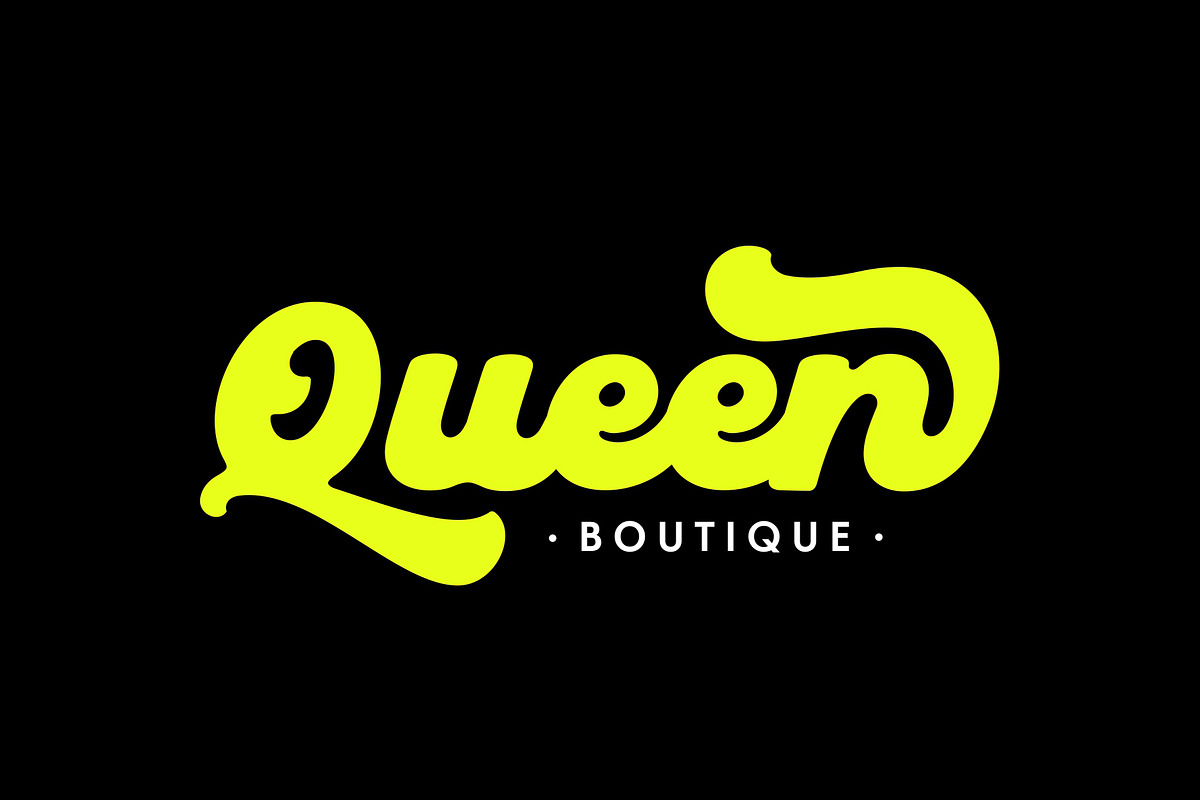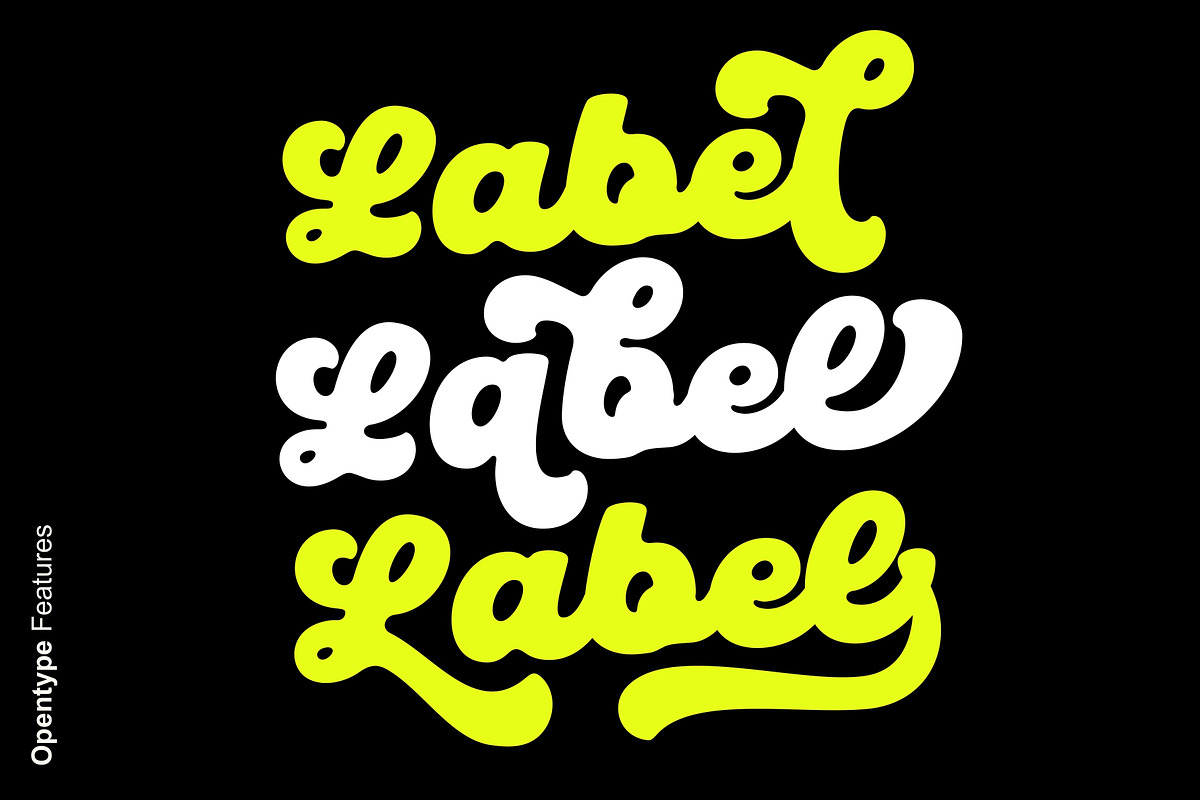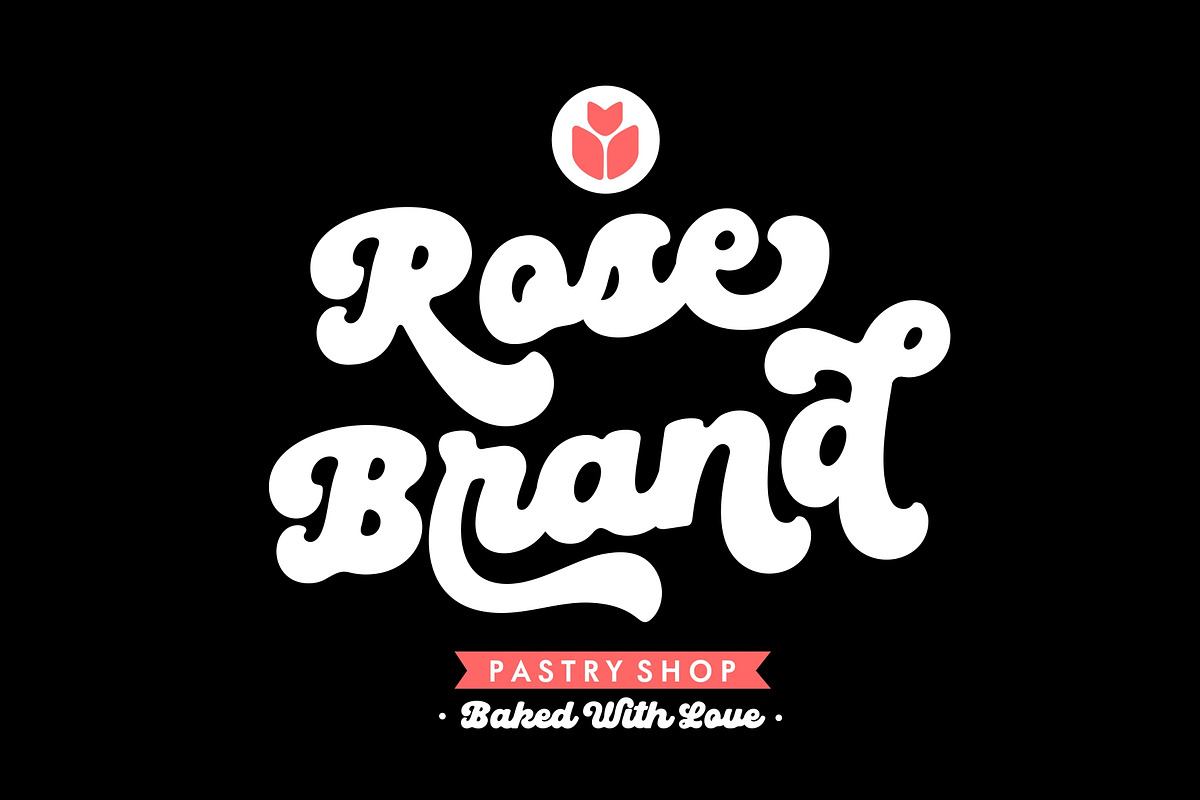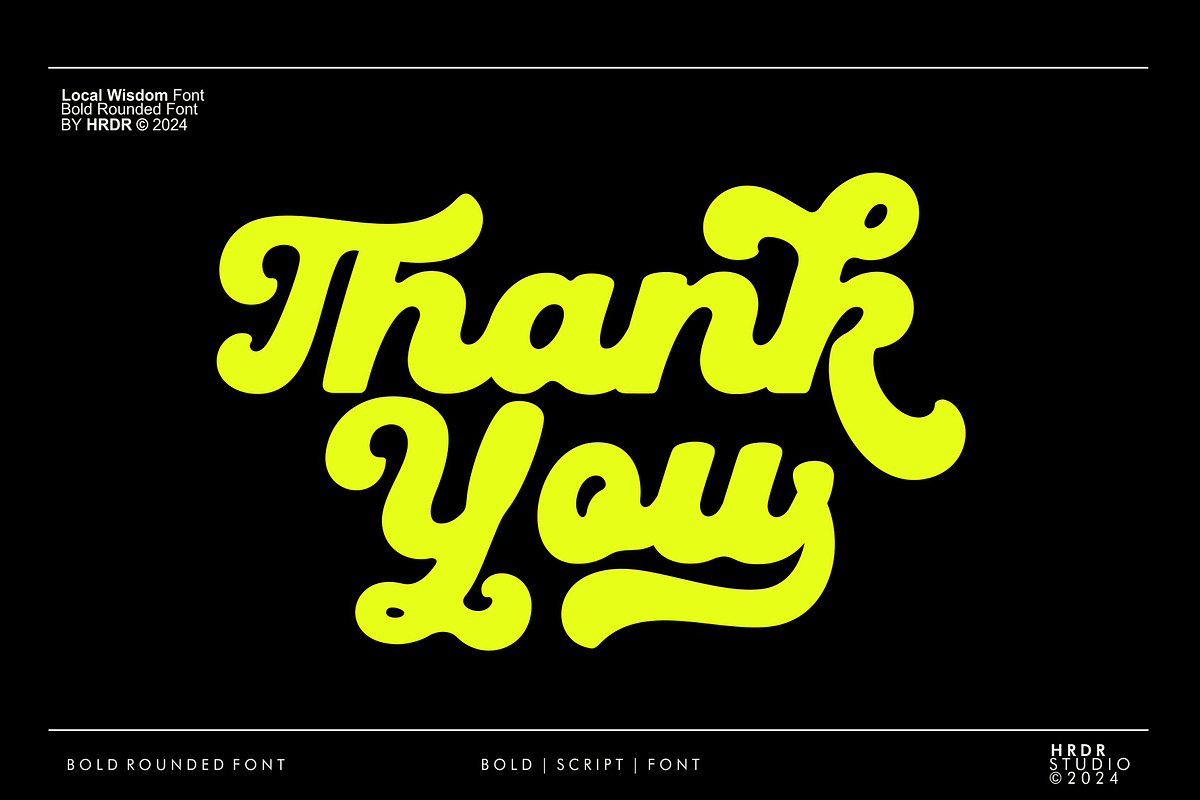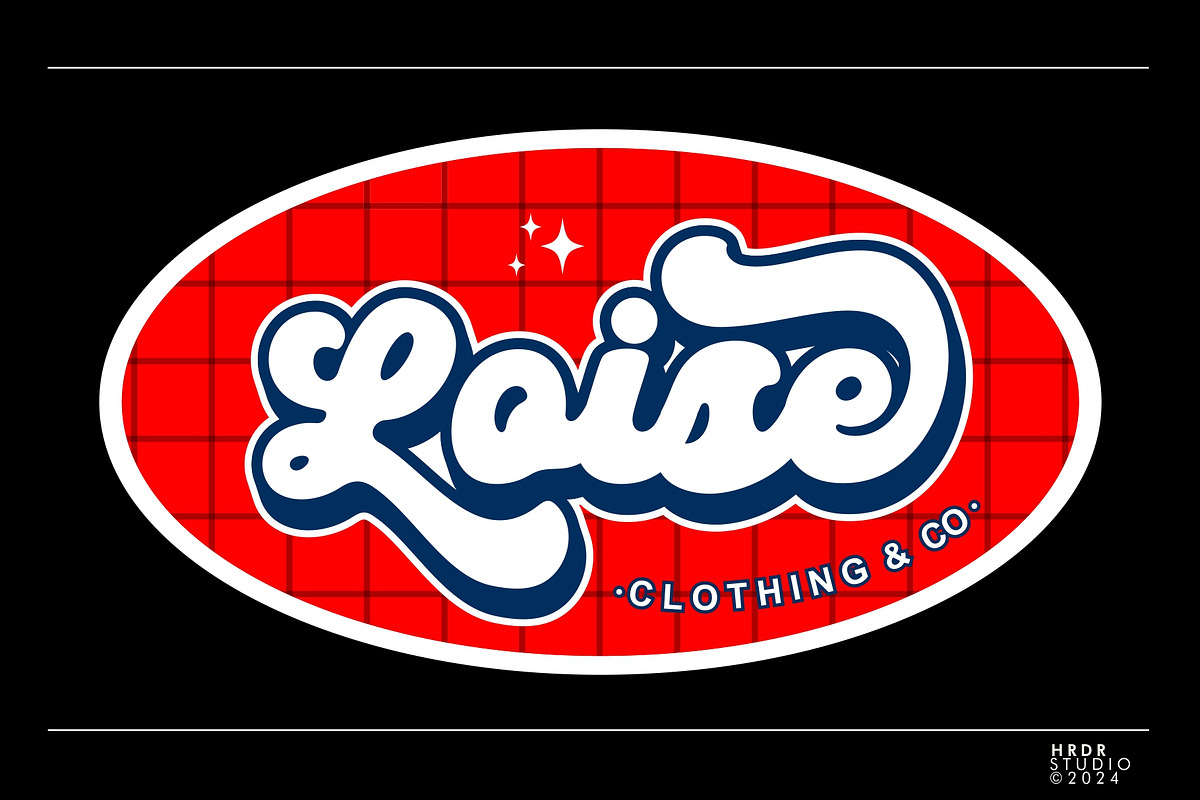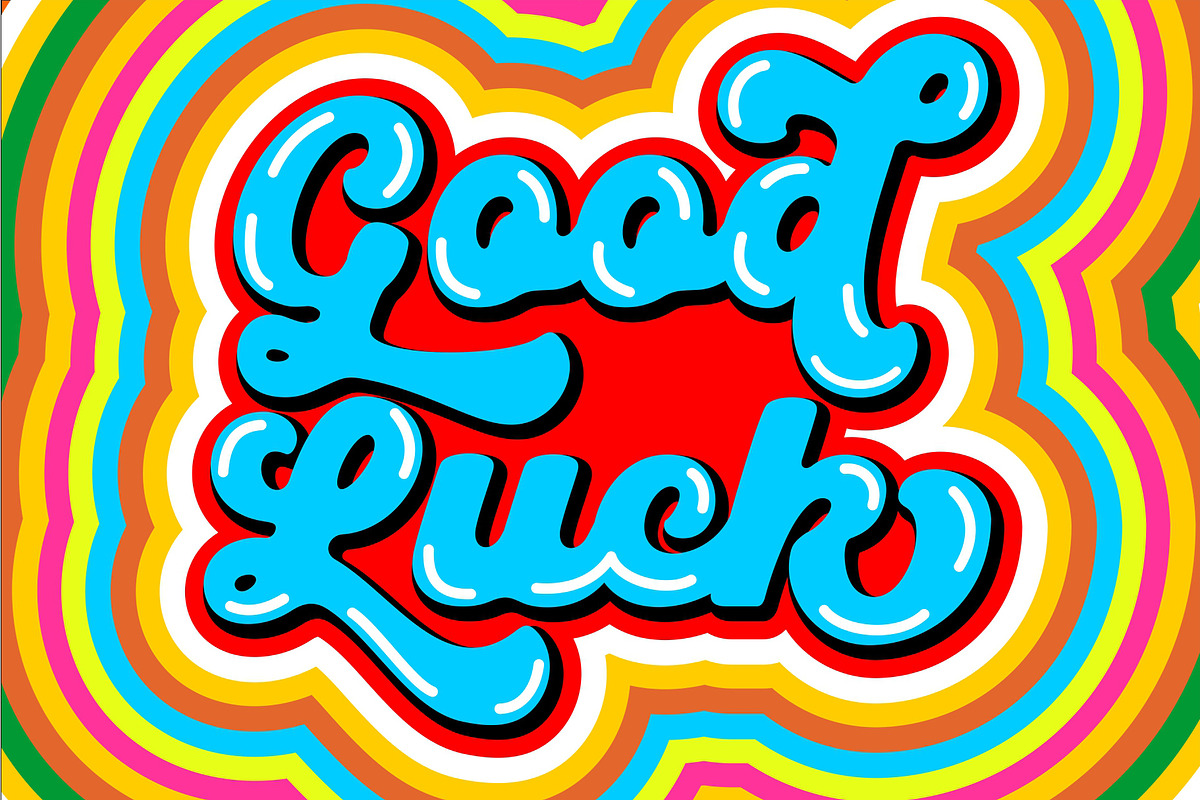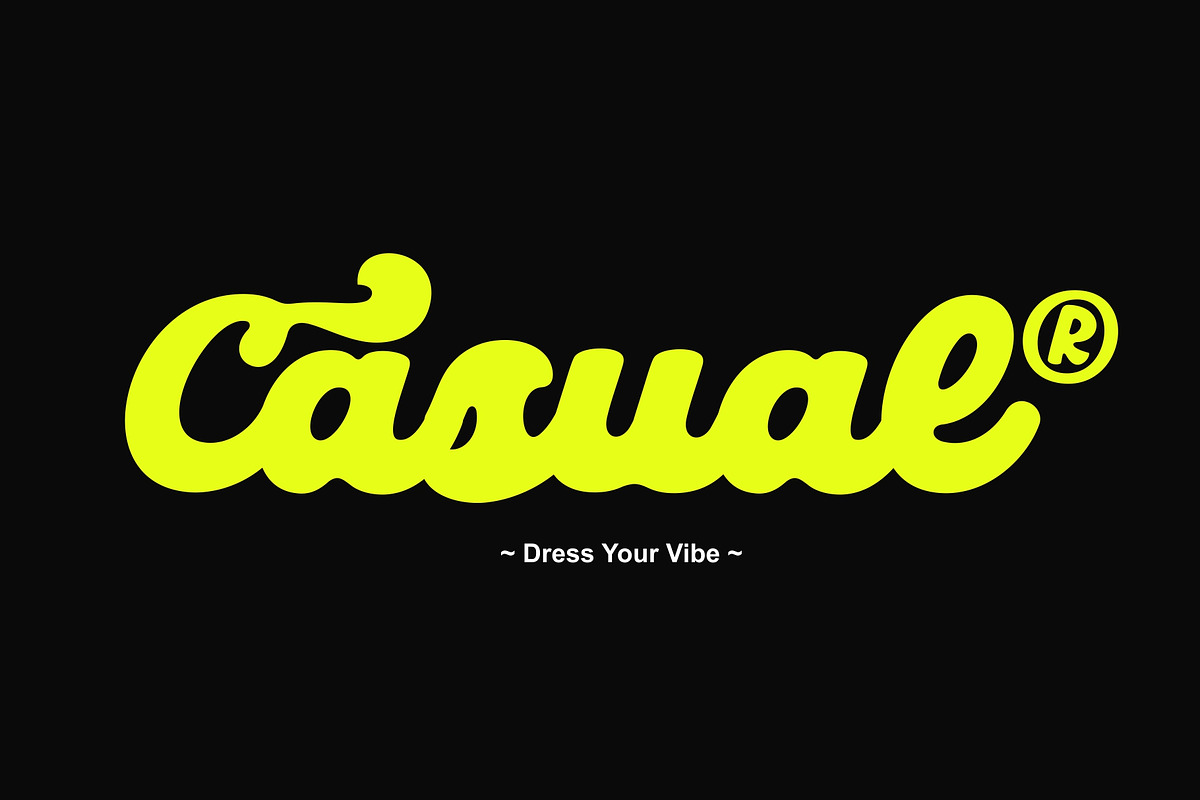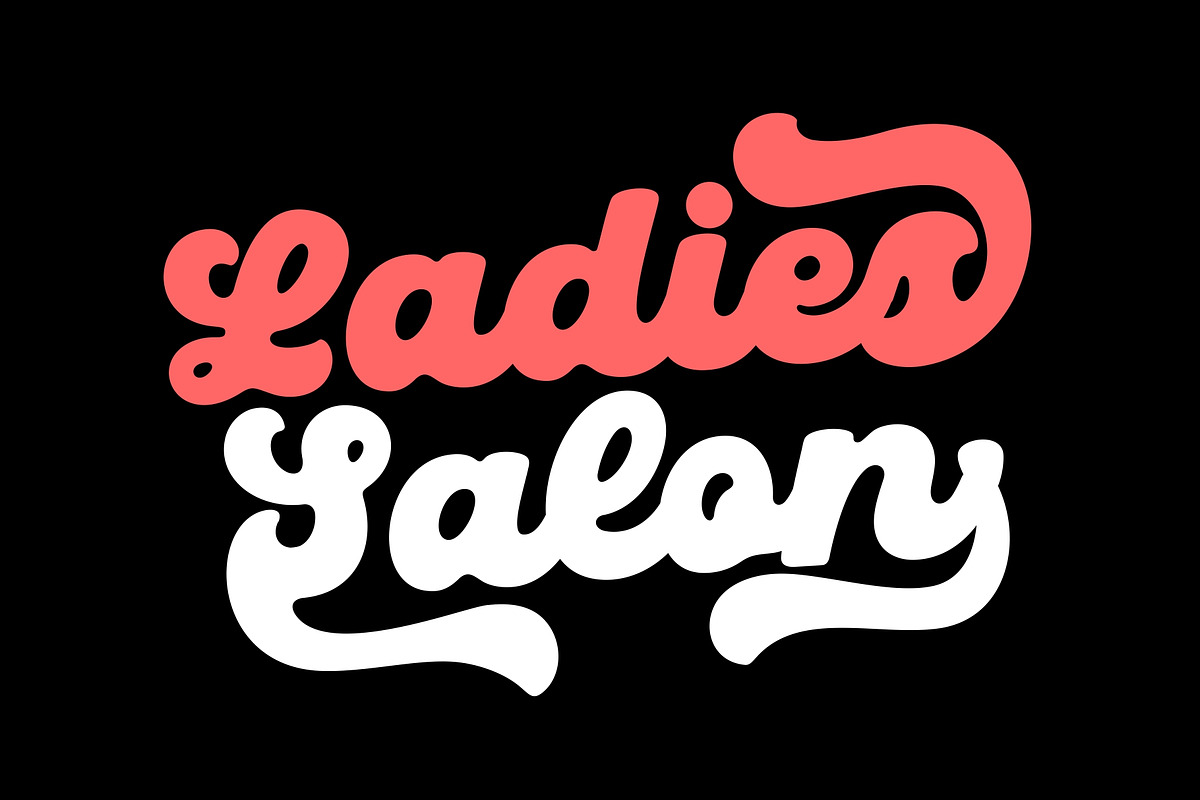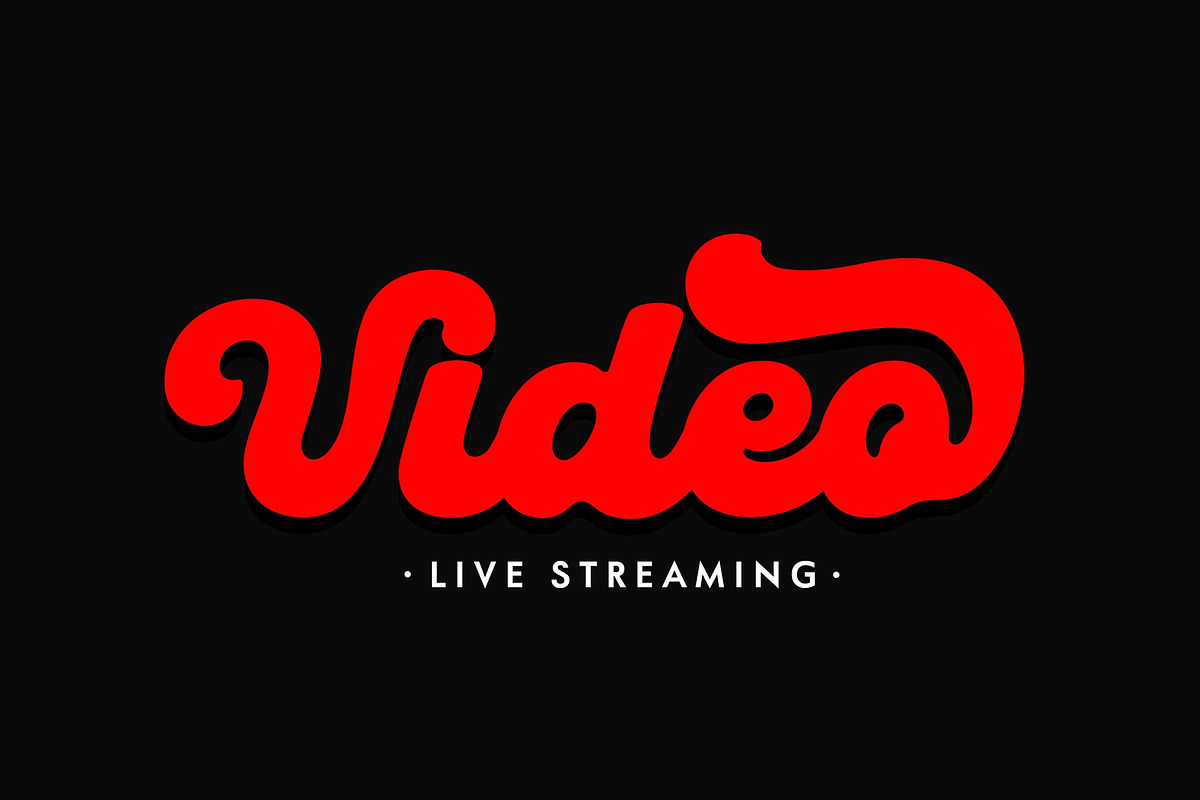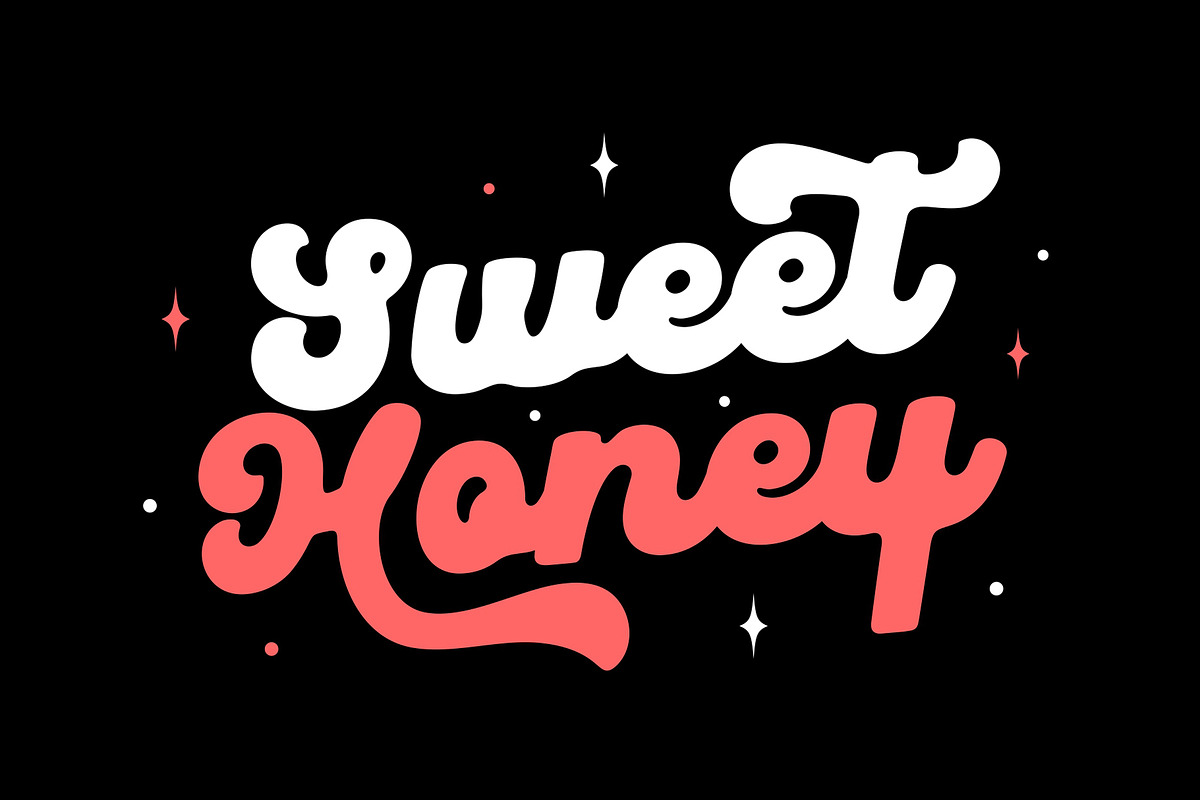
Local Wisdom
Local Wisdom is a bold and curvaceous script font that captures a retro yet elegant charm. Its handwritten style is perfect for designers aiming to infuse a personal and expressive touch into their projects. Whether you're crafting eye-catching headlines, artistic logos, creative branding, or playful posters, Local Wisdom provides the unique flair that stands out in any design context.
The font includes a comprehensive set of features: uppercase and lowercase letters, numeric and multilingual support, ligatures, and stylistic alternates labeled Ss01 through Ss05 and swash. These variations allow for creative flexibility, making it ideal for those seeking a distinctive and memorable impression.